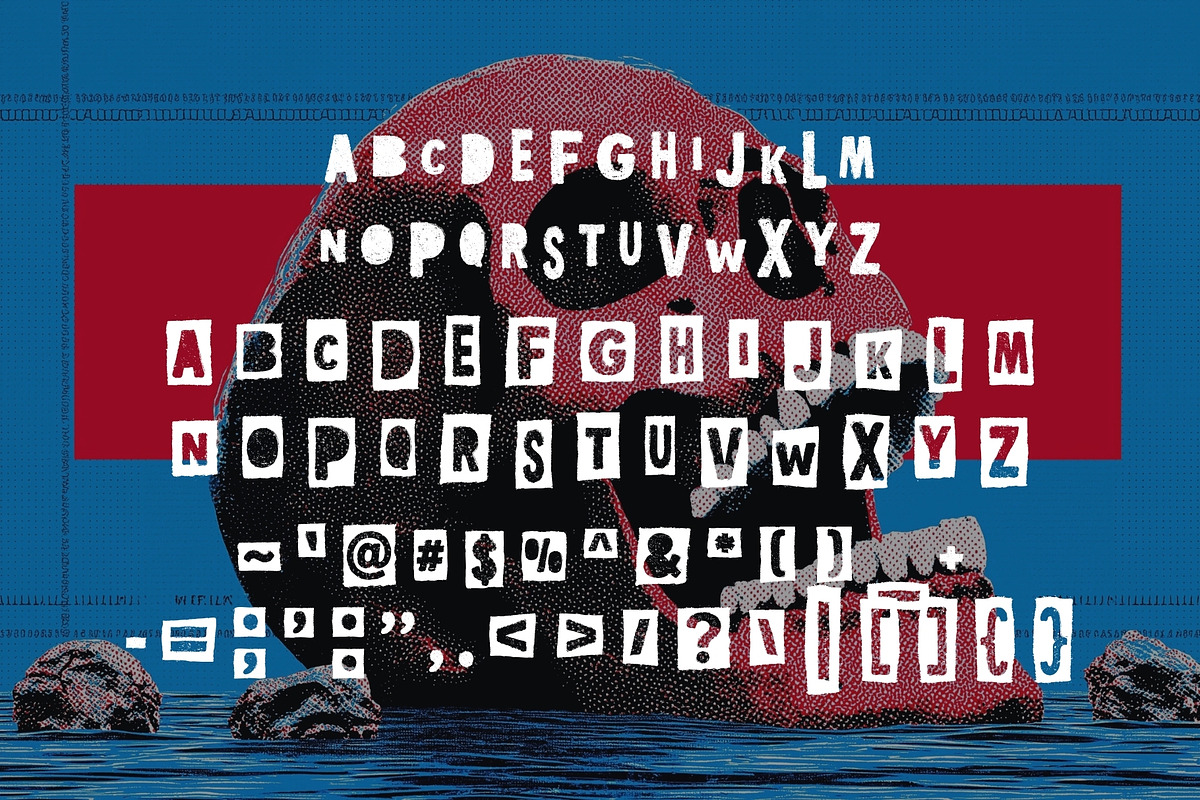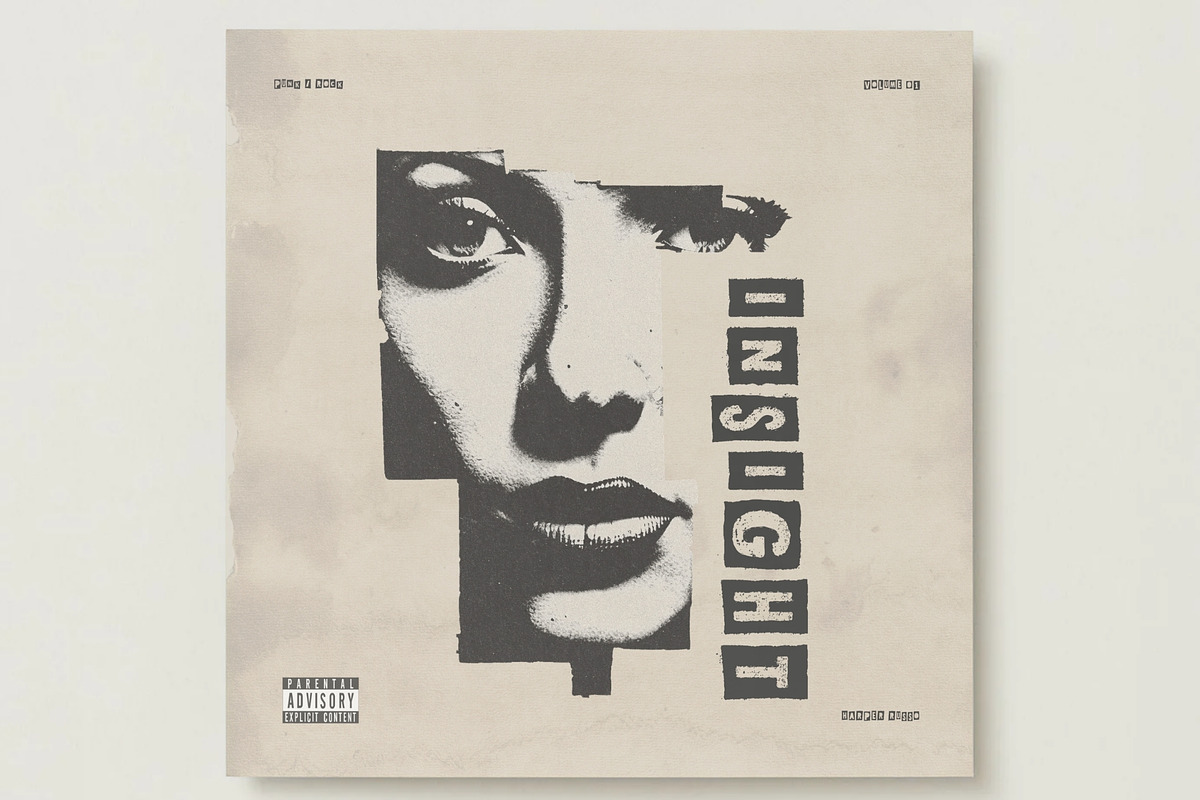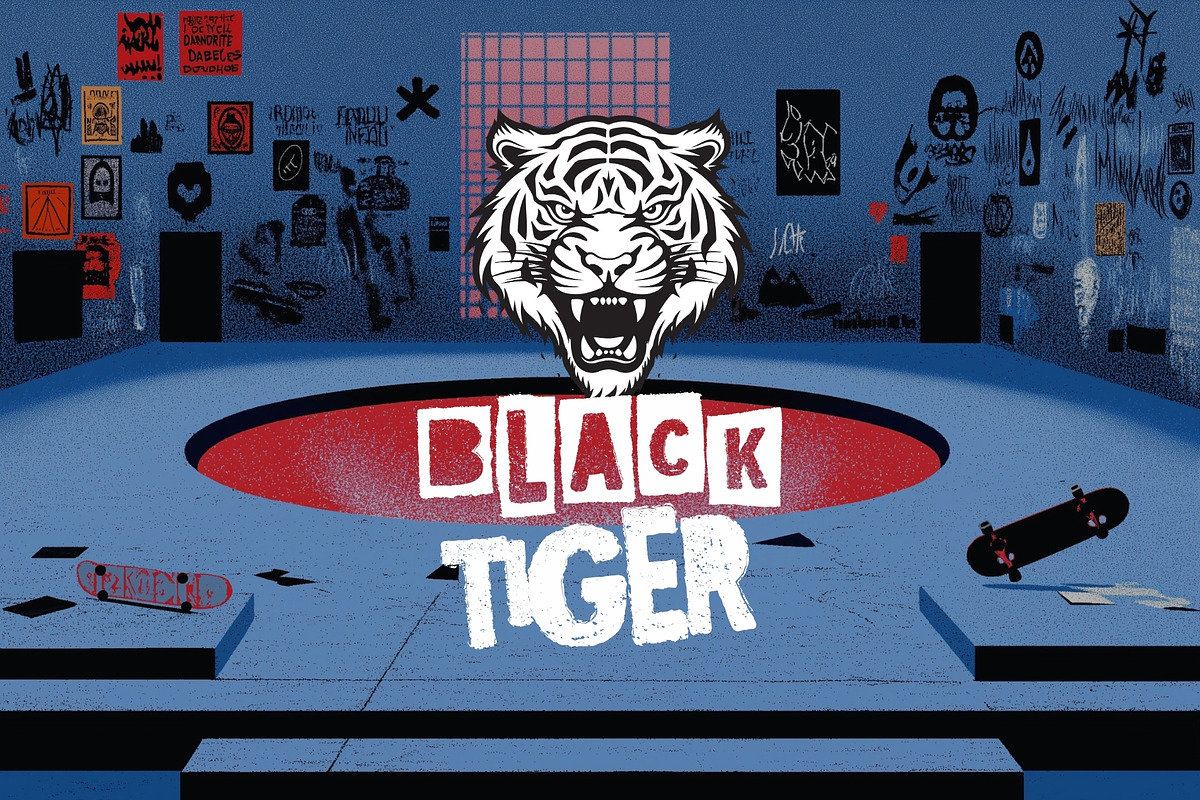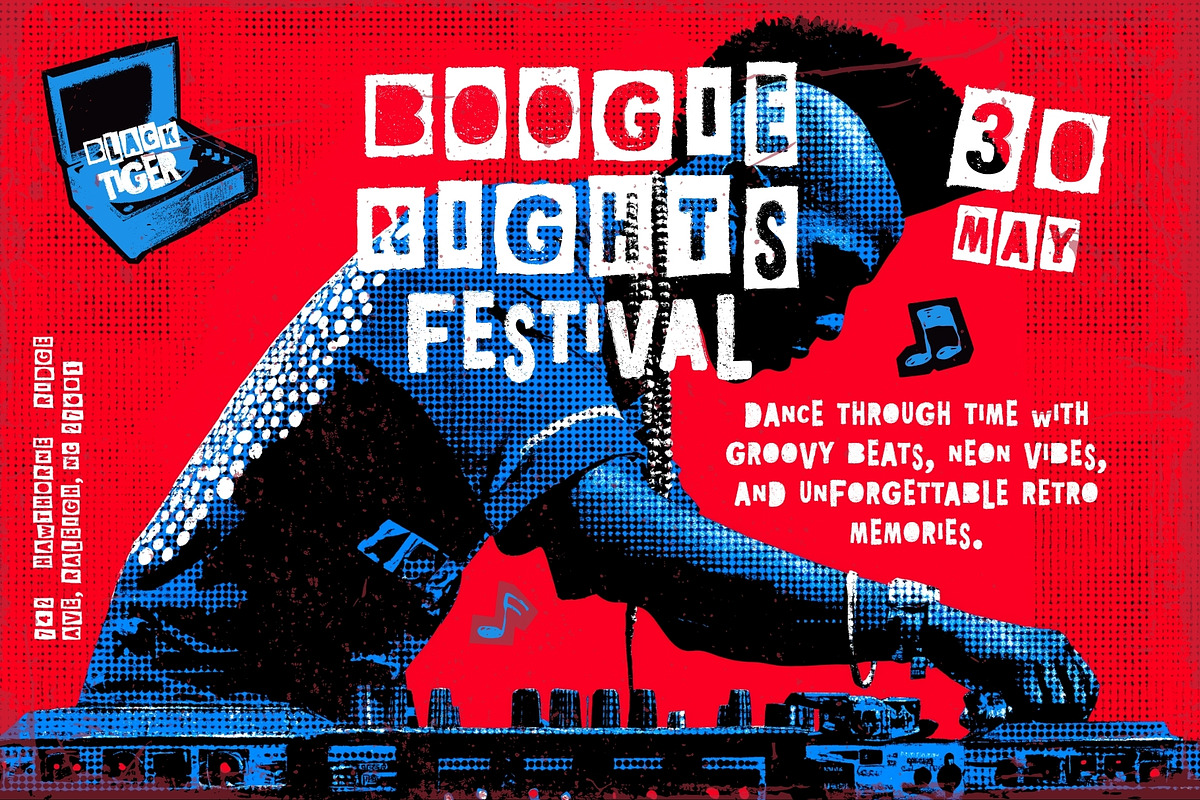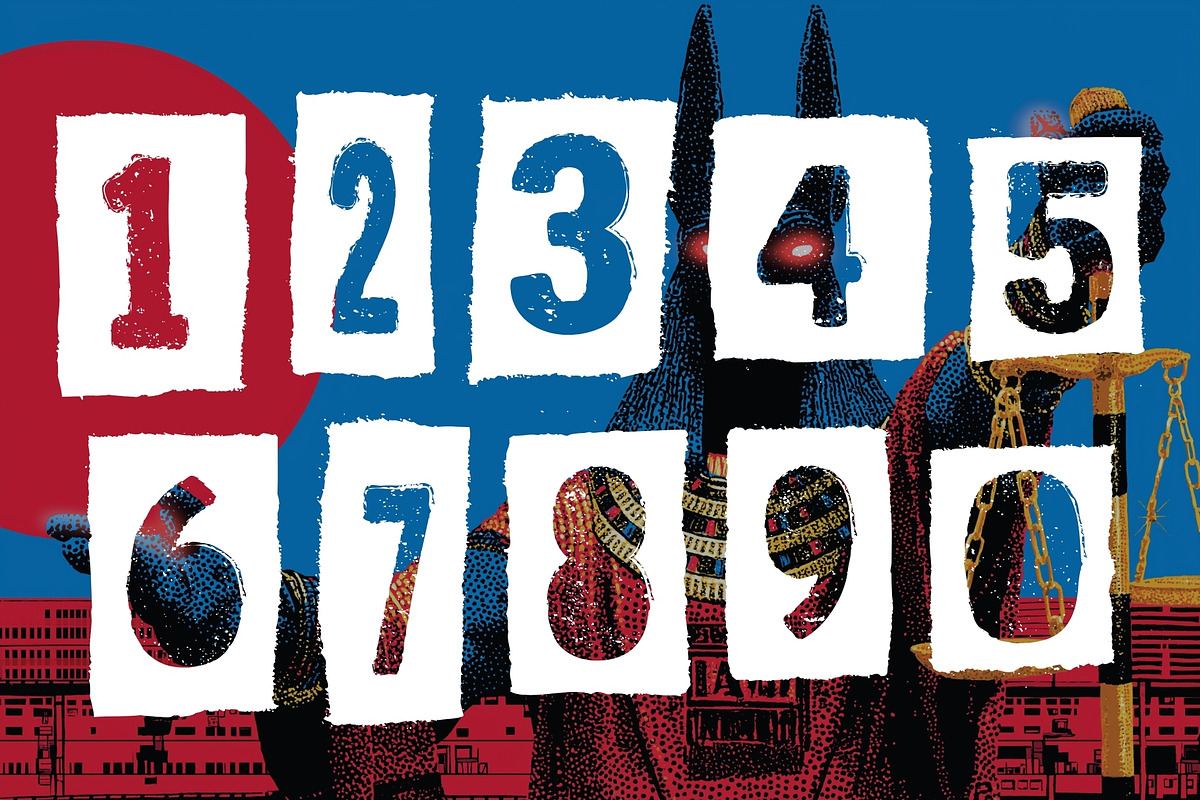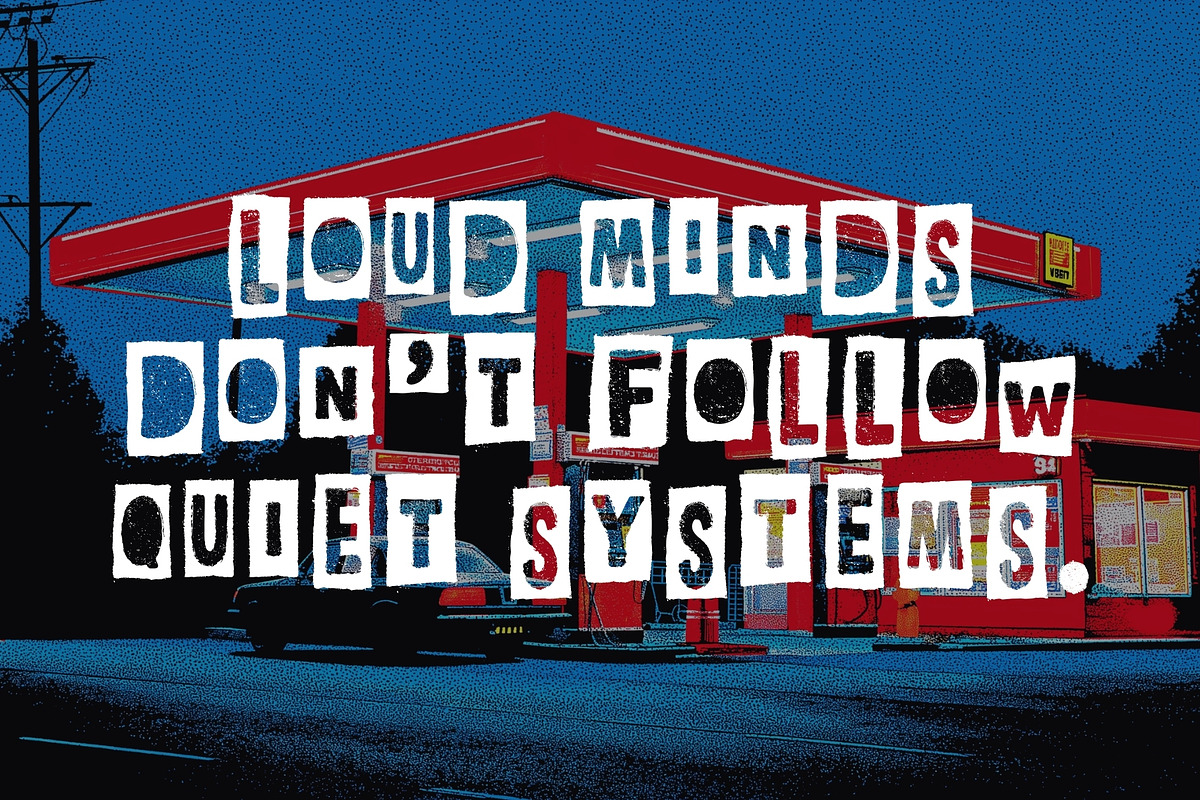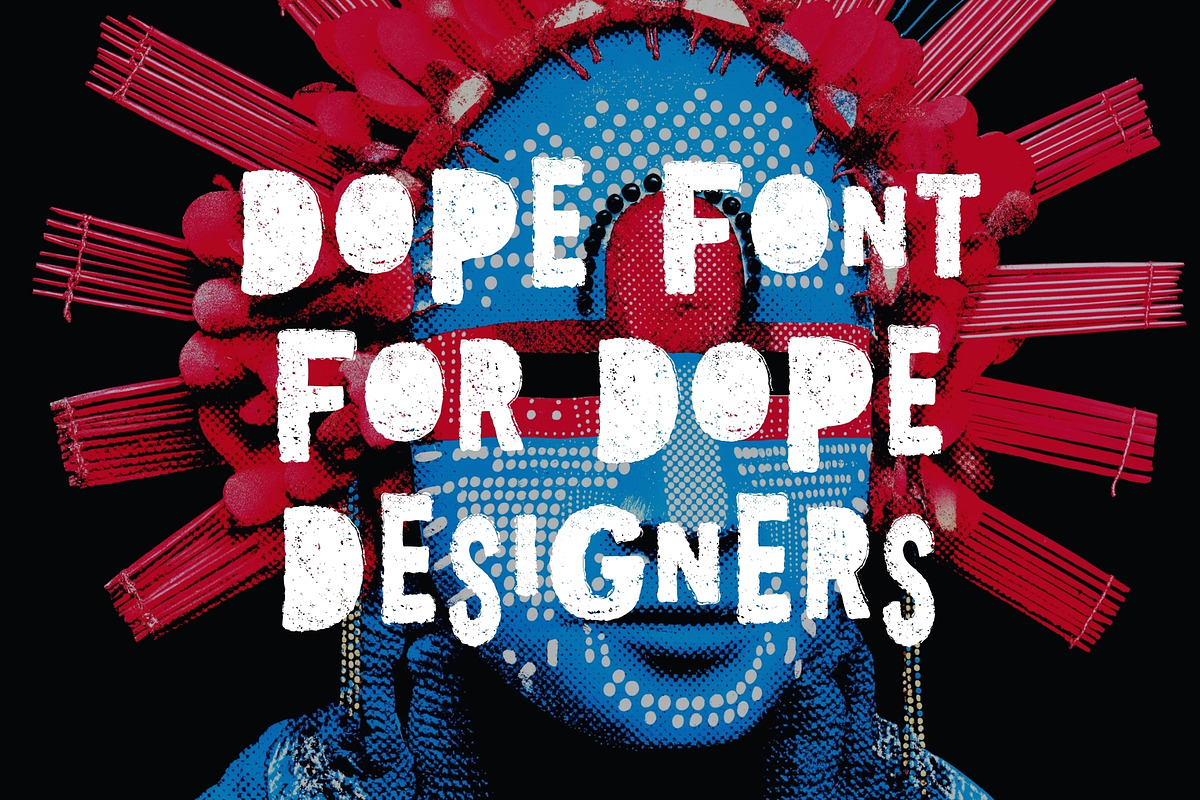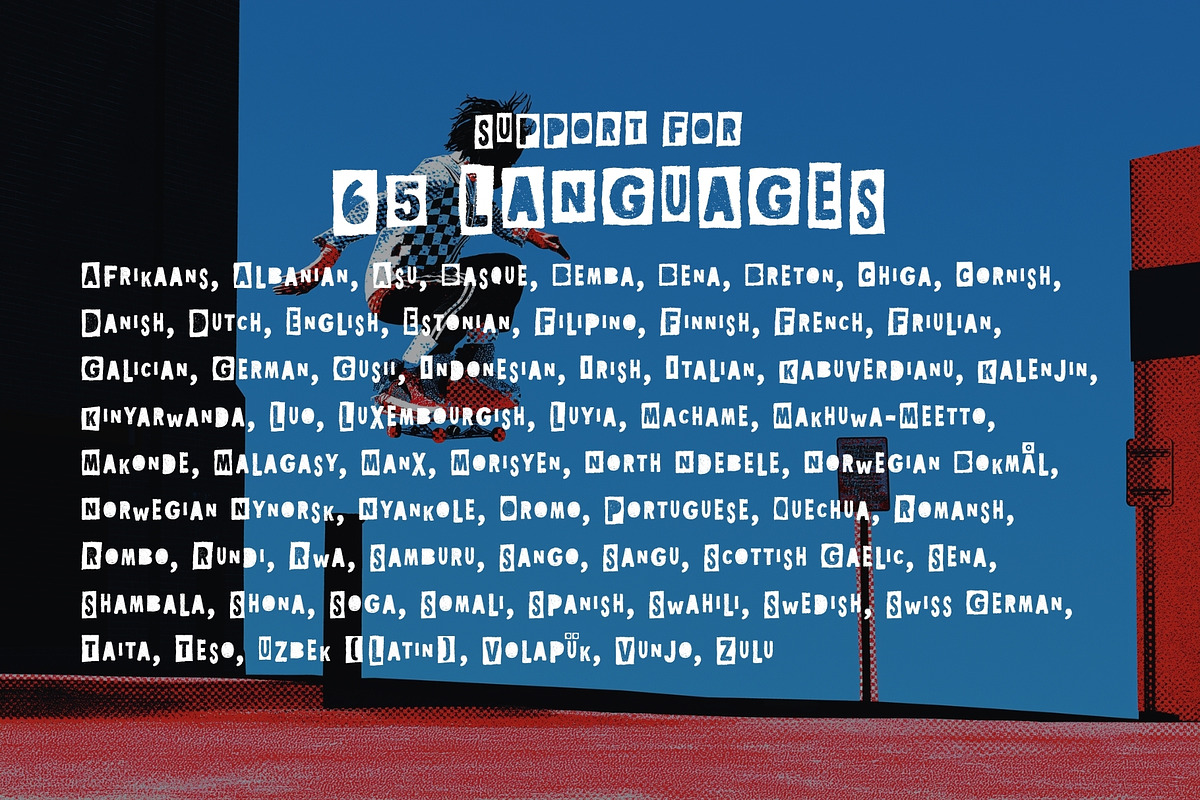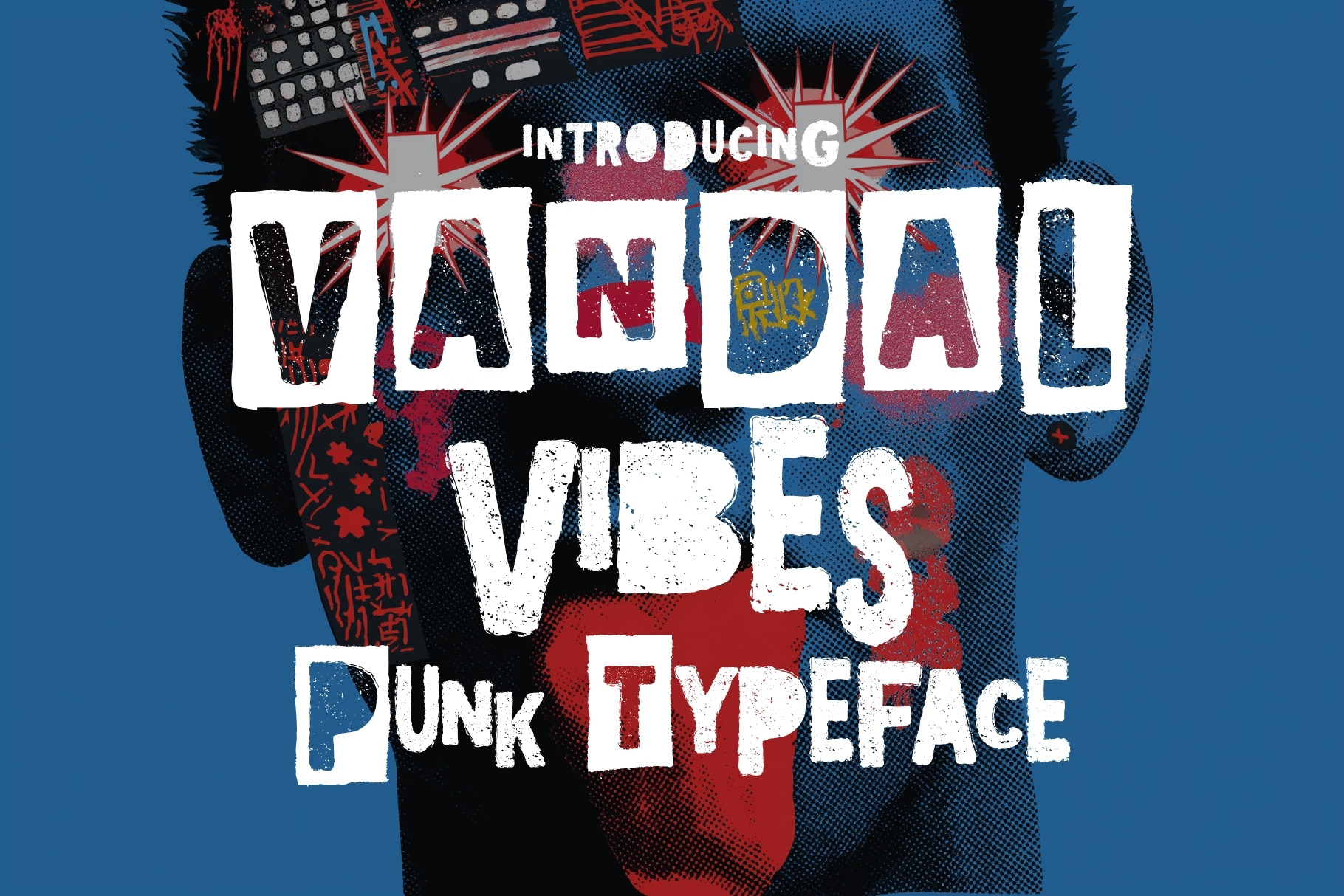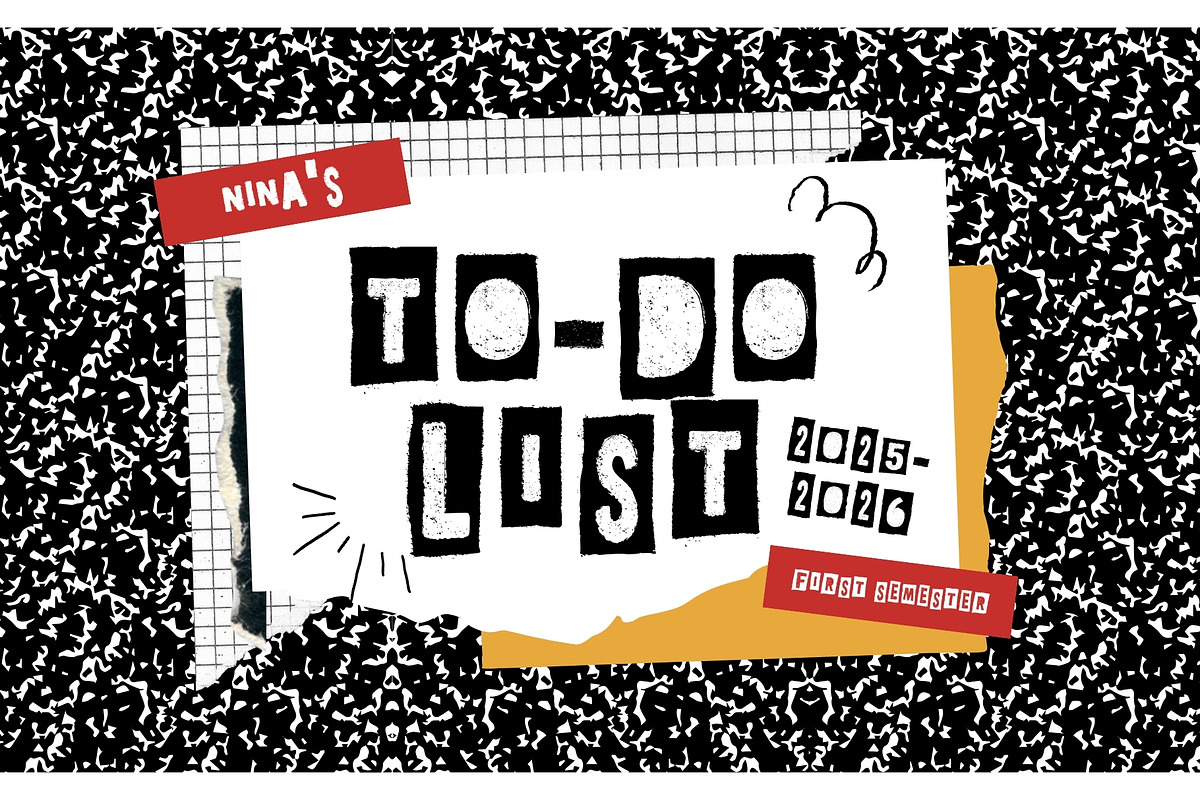
Vandal Vibes - Punk Typeface
Vandal Vibes is a rebellious display typeface that refuses to play by the rules. Designed with raw energy and DIY spirit, it channels the visual chaos of punk culture, underground zines, and street-level graffiti aesthetics.
This font gives designers full creative control between clean impact and gritty, worn-out distortion. The Regular style delivers bold, cut-and-paste inspired letterforms with strong readability and attitude, while the Textured style adds a distressed, chaotic finish that feels stamped, sprayed, and torn from the streets.
Every character carries a sense of movement and imperfection, capturing the spirit of handmade posters, protest signage, and analog collage culture. Uppercase and lowercase forms are intentionally varied, allowing for unpredictable layouts and expressive typography compositions that feel alive and nonconformist.
Perfect for punk-inspired branding, album covers, zines, posters, bold advertising, skate culture visuals, and editorial design, Vandal Vibes thrives wherever visual rebellion is needed. It also brings a striking edge to unexpected applications like packaging, invitations, and stationery—turning even structured layouts into statements of defiance.